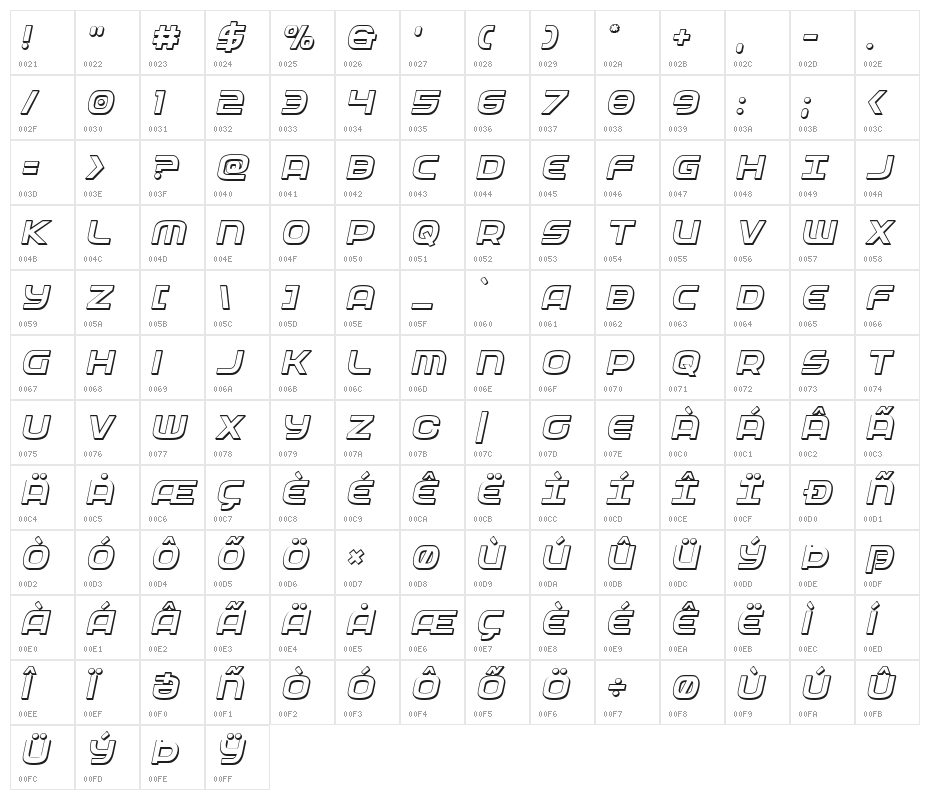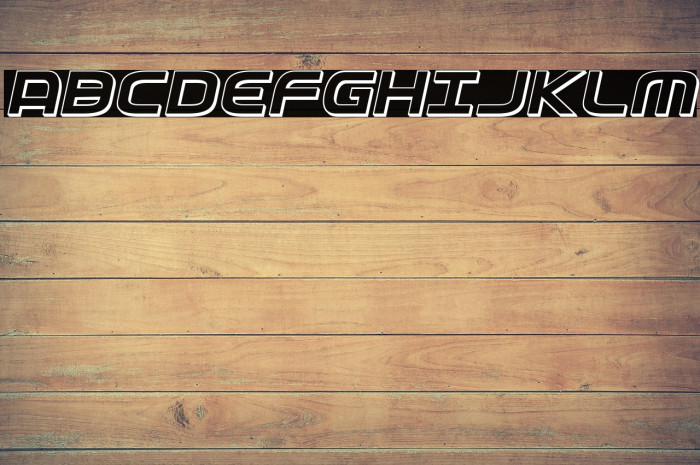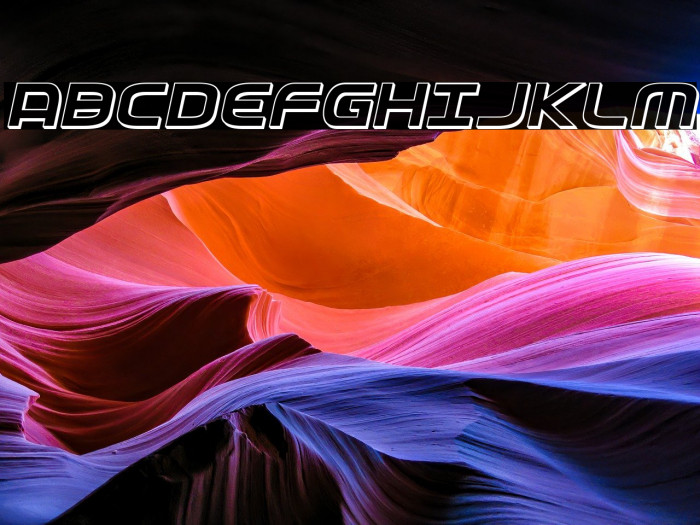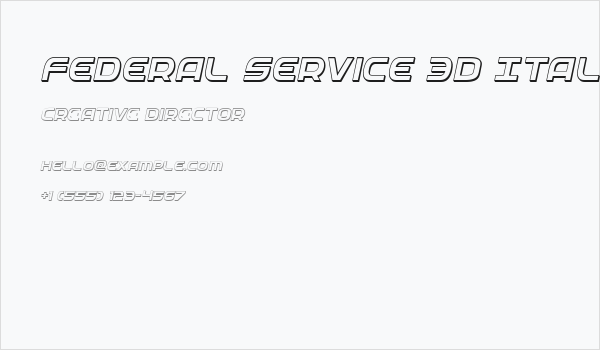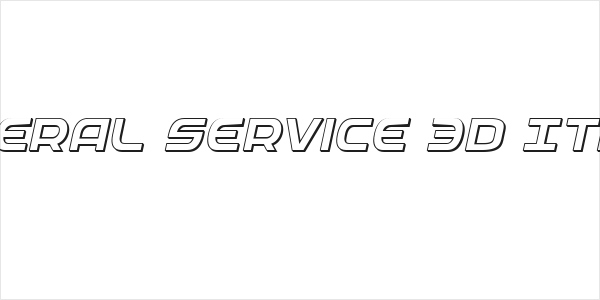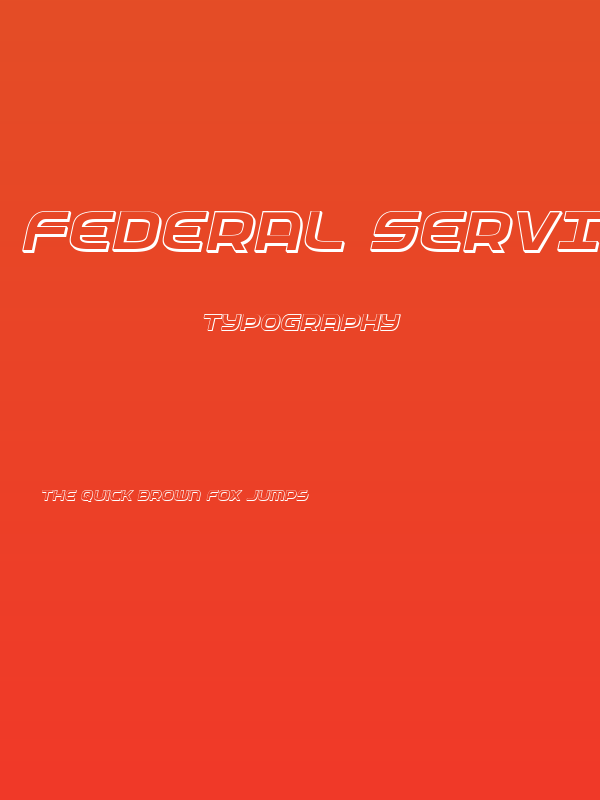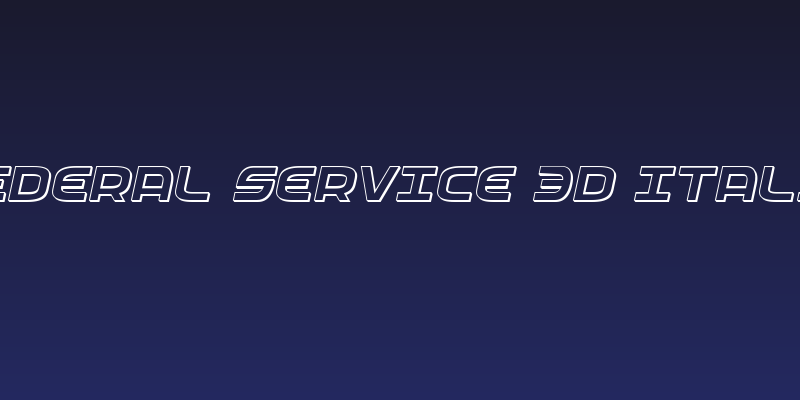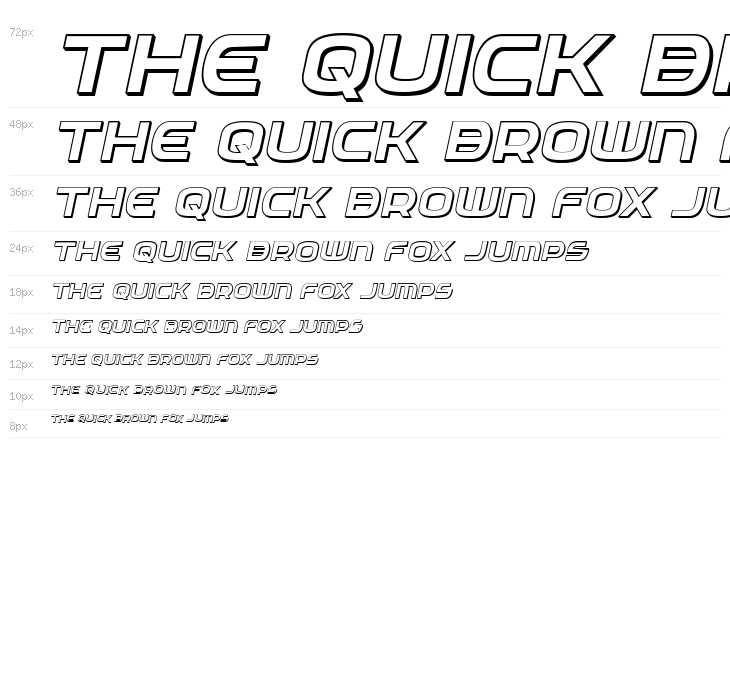
Federal Service 3D Italic Font
Federal Service 3D Italic Description
This font features a modern, three-dimensional design with a distinct italic slant, giving it a dynamic and futuristic appearance. The characters are outlined, creating a hollow effect that adds depth and visual interest. Each letter and number is crafted with precision, maintaining a consistent stroke width throughout. The uppercase and lowercase letters are well-proportioned, and the numerals are clear and easily distinguishable. Special characters are included, enhancing its versatility for various design needs. The font's unique style makes it suitable for projects that require a bold and contemporary look.